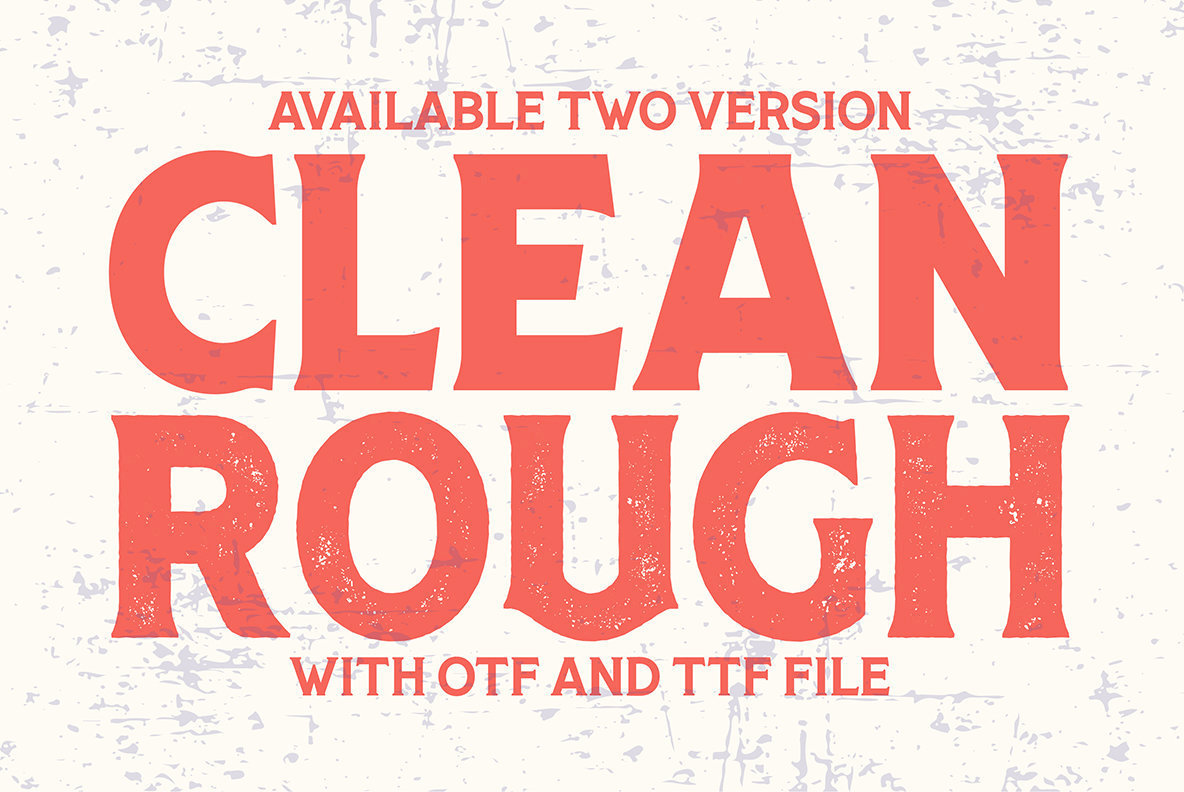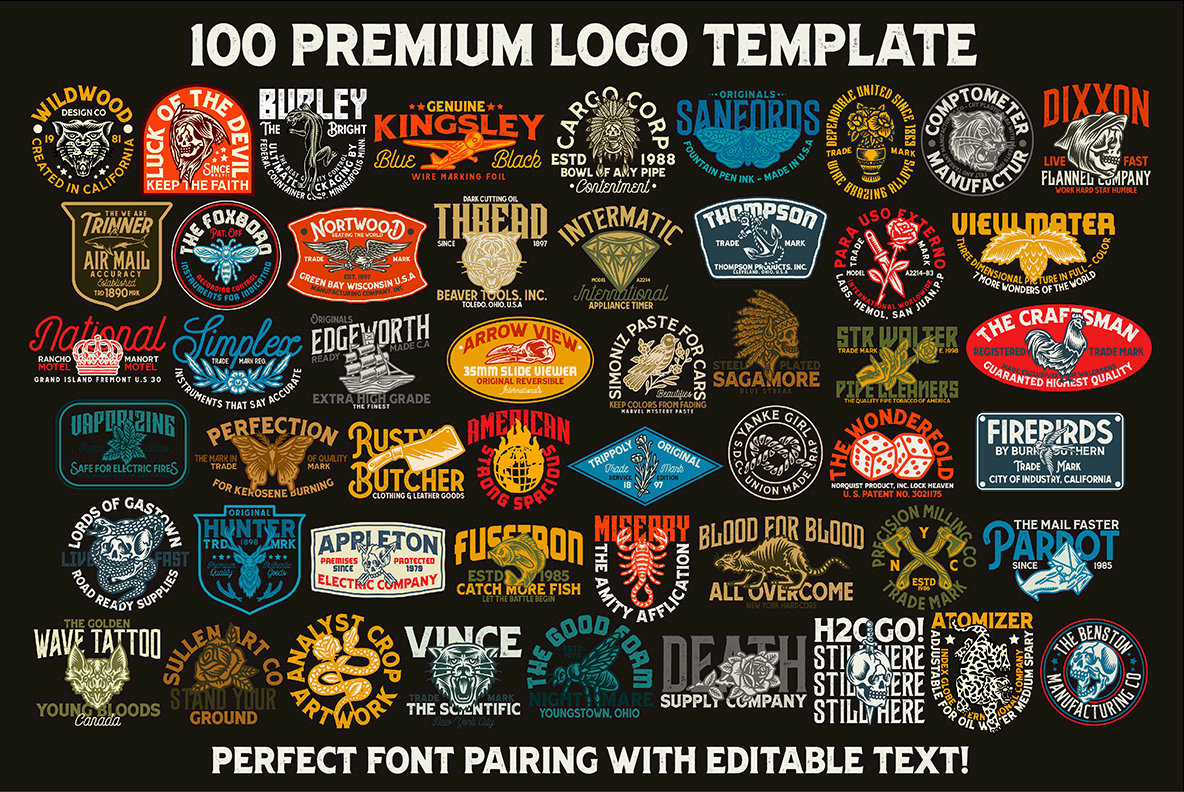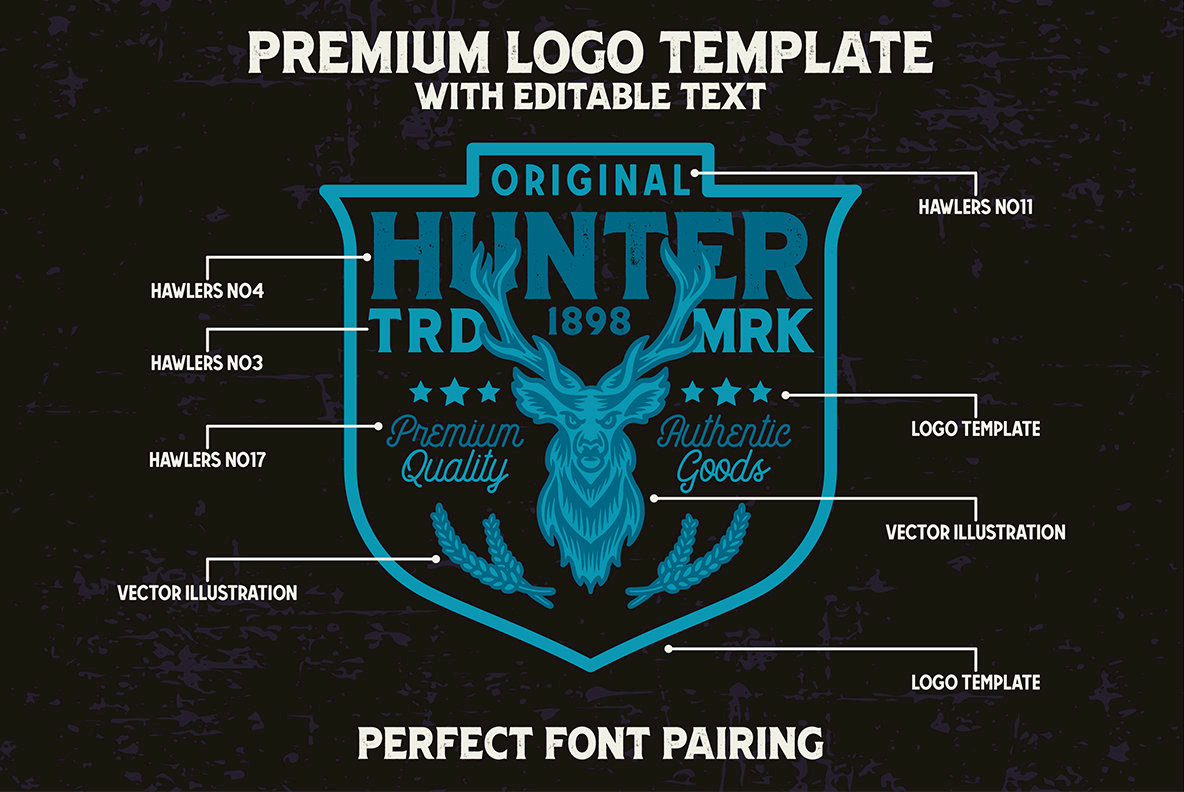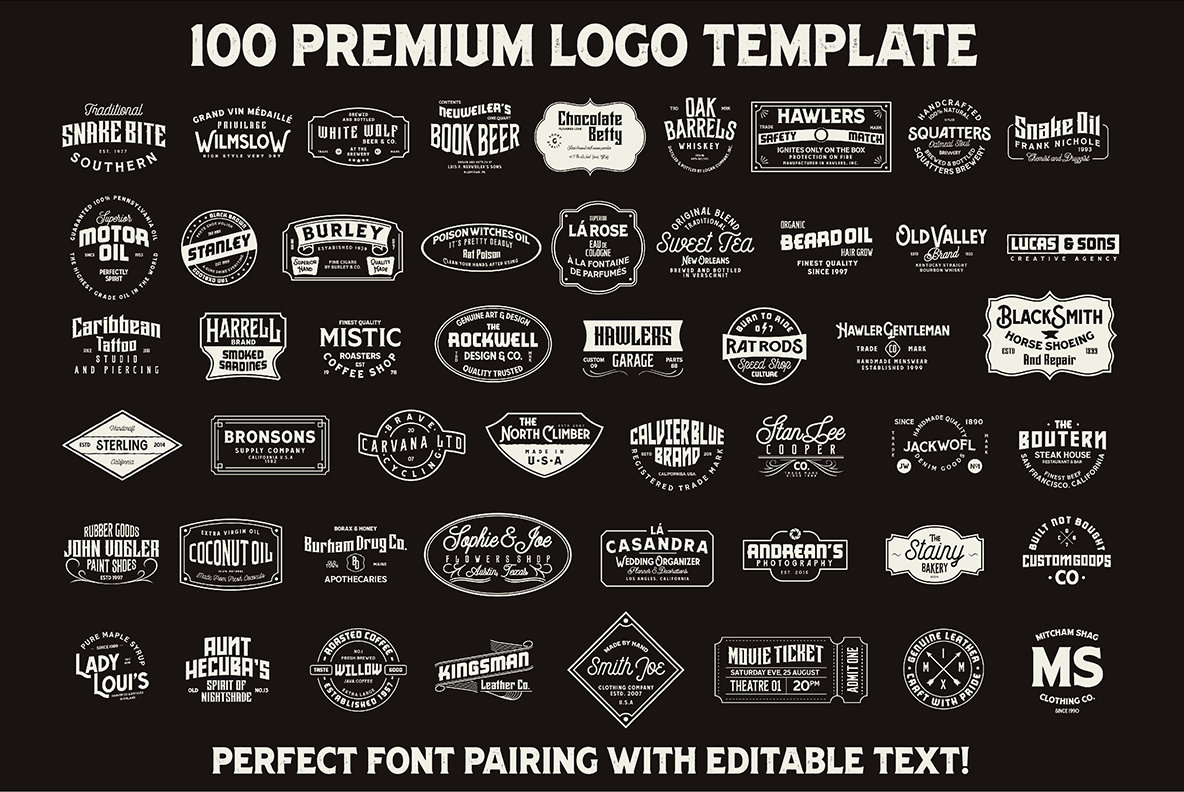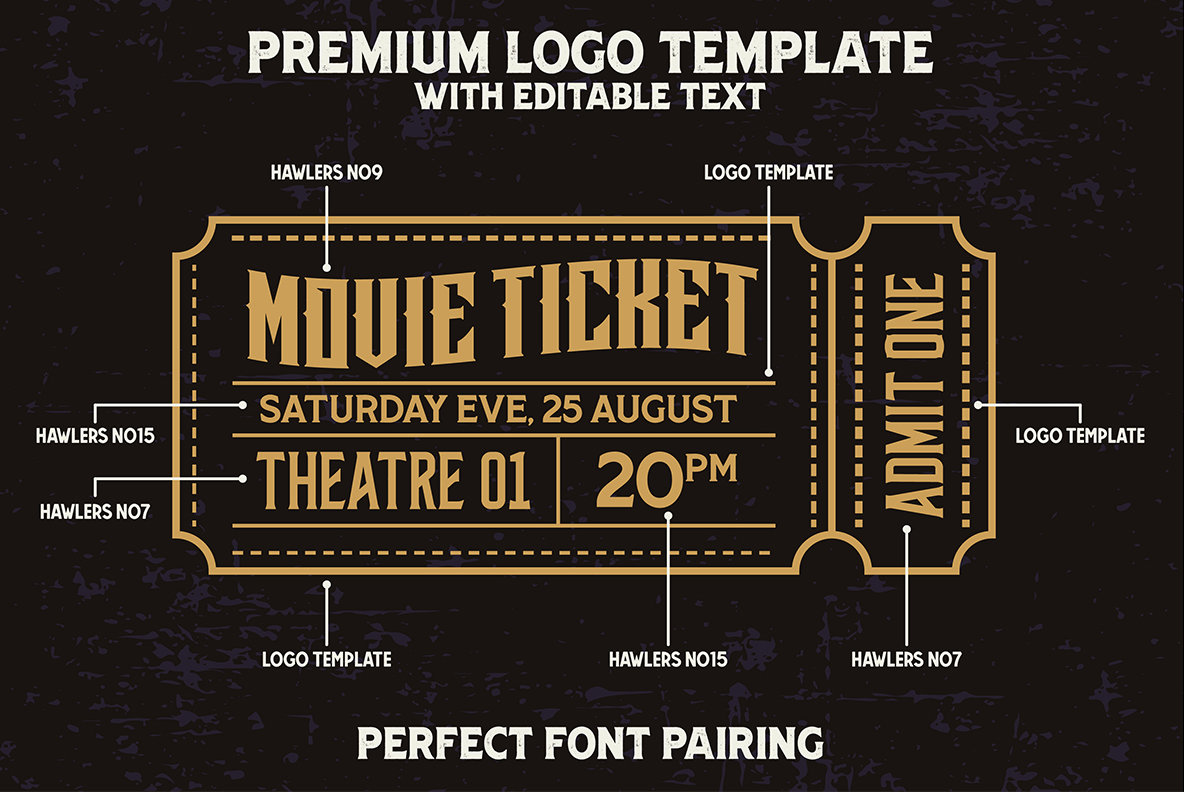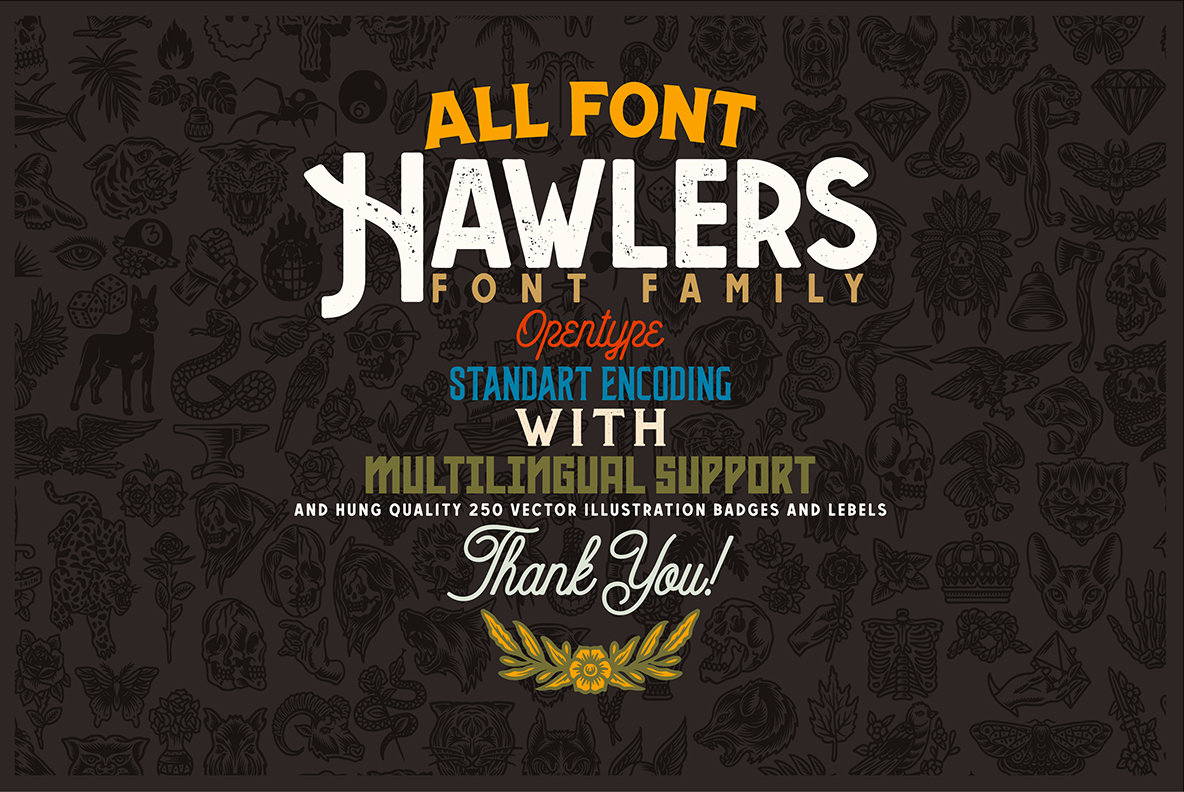
Hawlers Font Family
Hawlers Font Family With 150 Vector Collections + 100 Premium Logo Template
Hawlers Font Family includes 20 fonts that have different styles from each other but at the same time perfectly paired when used together create your best design with this font for any purposes suck as t-shirts, sign, sticker, logos, poster design, magazine, mark, and others. This is essentially 20 fonts being released together instead of separately. 20 Fonts, 150 Vector Illustrations, Badges and Labels and 100 Logo template
- Hawlers Font Family (10 Clean Font & 10 Rough Font)